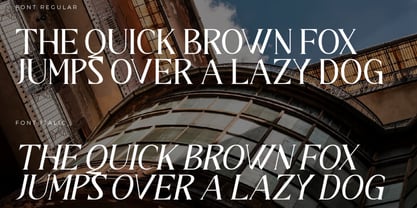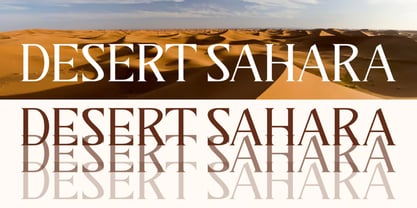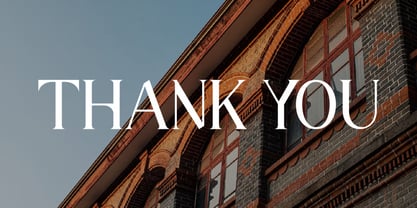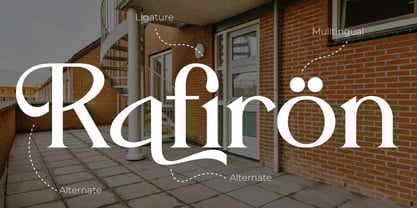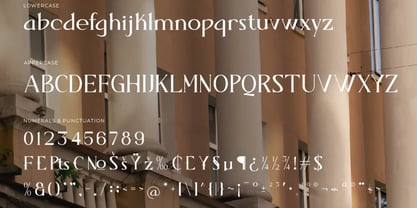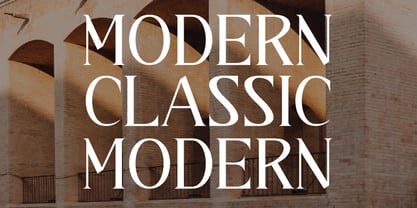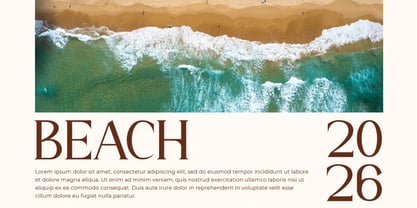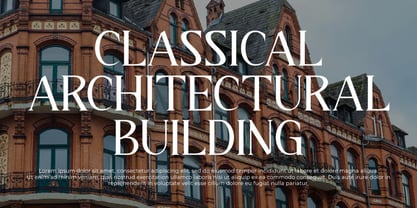
Darifty
by Hasnat Studio
The Darifty Font Family was designed by Hasnat Khan and published by Hasnat Studio. Darifty contains 1 styles.
Darifty is a premium serif typeface designed to embody refinement, confidence, and timeless beauty. Its elegant structure, graceful serifs, and meticulous detailing provide a distinctive and luxurious feel that enhances any creative project. Ideal for designers who prioritize elegance and precision, this typeface seamlessly blends classic style with modern versatility. Whether utilized for branding, editorial design, packaging, or web typography, Darifty adds a touch of high-end professionalism. Designed with advanced typographic features, it includes ligatures, alternates, and multilingual support, making it a comprehensive and globally compatible typeface for creative professionals. ✿ Key Features: - Elegant Serif Design: A balanced blend of traditional charm and modern sophistication. - Ligatures & Alternates: Customize your typography with stylistic variations and refined letter connections. - Multilingual Support: Supports 65+ languages, including English, French, Spanish, Italian, German, and many more. - PUA Encoded: Access all special characters and alternates easily, without needing additional software. - Optimized Compatibility: Fully functional on Mac and Windows. - Simple Installation: Quick and easy setup for immediate use. - Works with Major Design Software: Compatible with Adobe Illustrator, Photoshop, InDesign, and Microsoft Word. ✿ Perfect For: - Luxury Branding & Logo Design: Ideal for upscale brands that require sophistication and distinction. - Editorial & Print Media: Perfect for magazines, books, and professional typographic compositions. - Packaging & Labels: Adds refinement to product designs and premium packaging. - Web & Social Media Design: Elevate digital visuals with high-quality, readable serif typography. Refine your creative vision with Darifty — a premium serif typeface that unites elegance, precision, and timeless appeal, ensuring every project exudes luxury and professionalism.
Designers: Hasnat Khan
Publisher: Hasnat Studio
Foundry: Hasnat Studio
Design Owner: Hasnat Studio